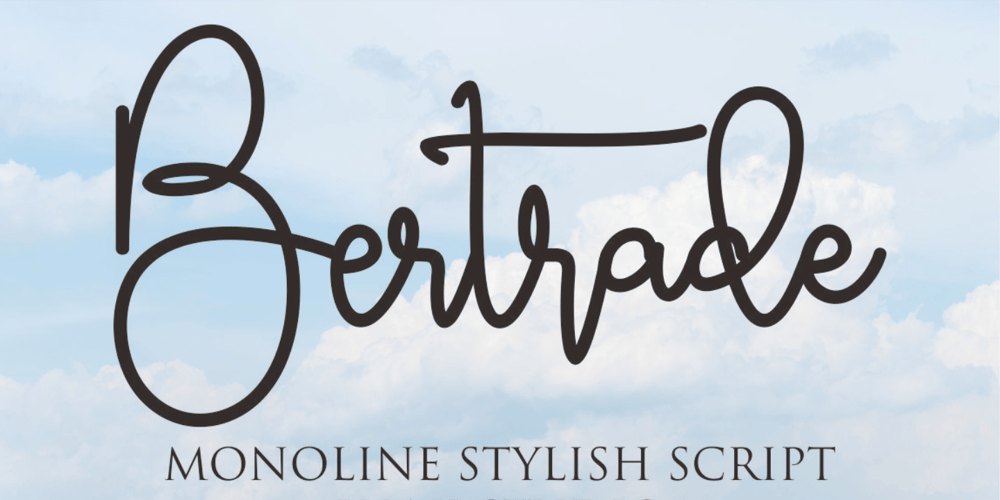
Bertrade Font Family was designed by Siti Nurjanah and published by NJ Studio. Bertrade contains 1 styles and family package options. Hi…Thank for your visit :)Bertrade monoline stylish script Fonts are font designs that are made for various vector designs, printing such as digital wedding invitations, blogs, online shops, social media, while printing can be used in the field of product clothing, accessories, bags, pins, logos, business cards, watermarks and many others …Bertrade is equipped with complete alternates, so it can make your product look elegant and attractive,and also Multilingual support!!!Happy design …